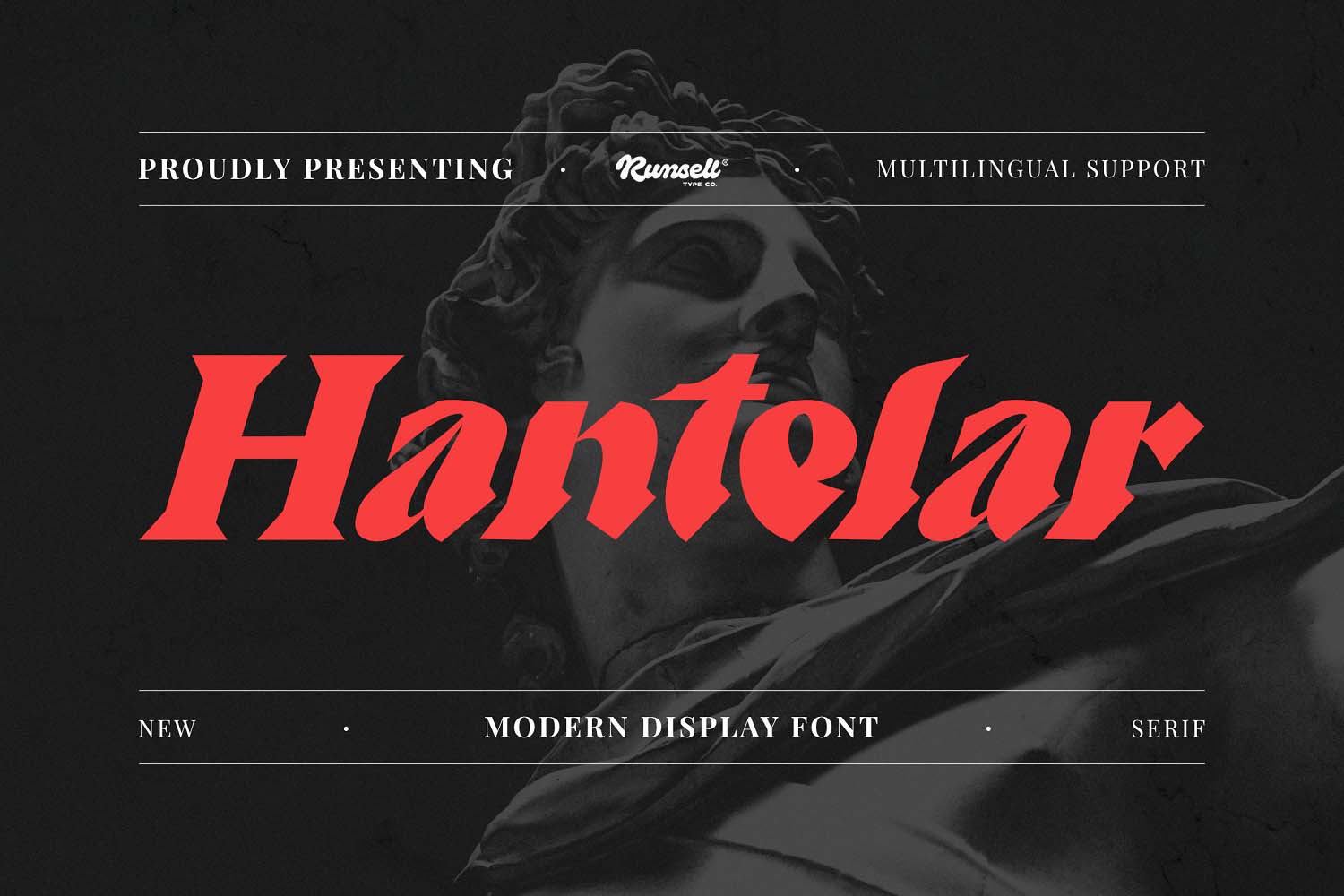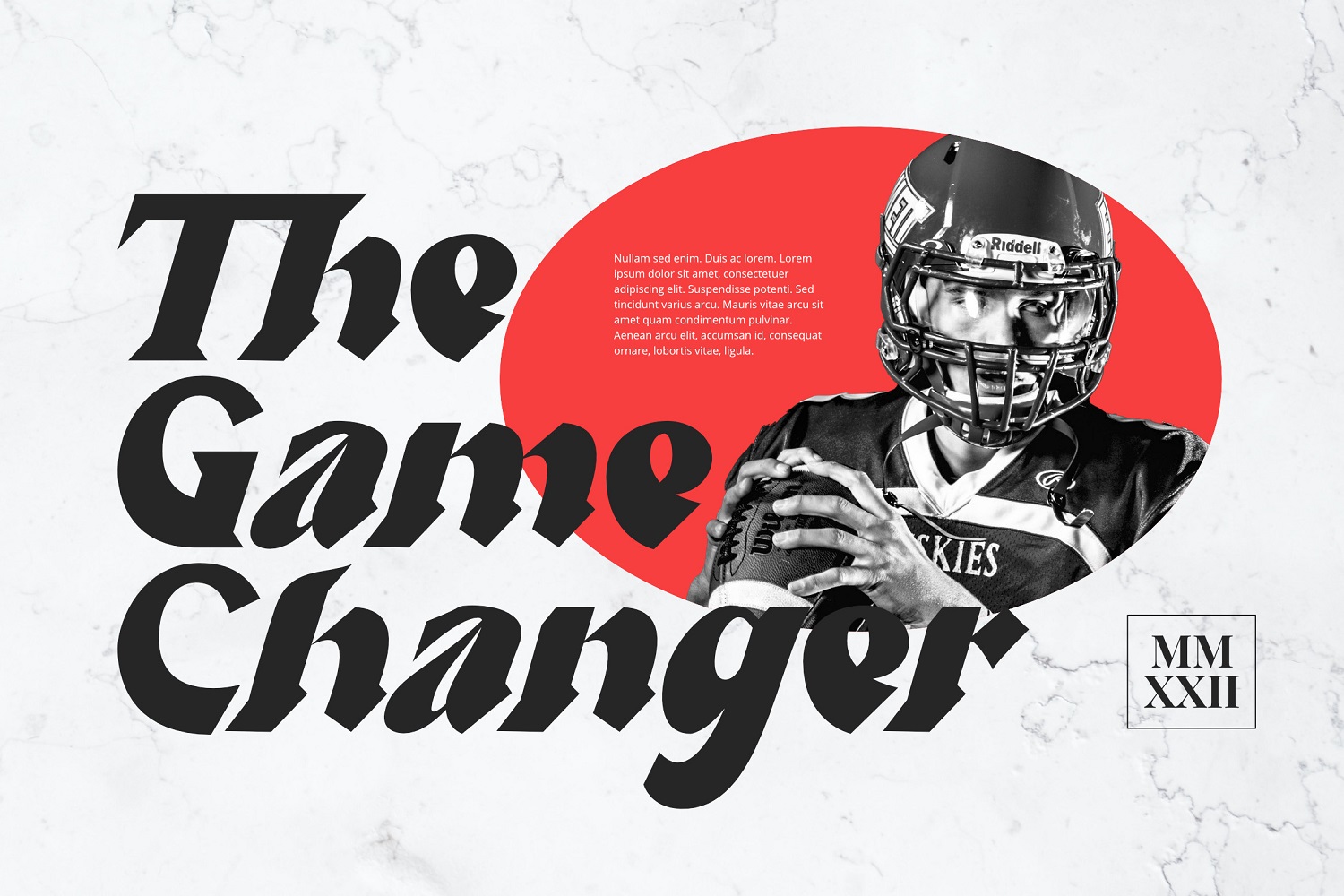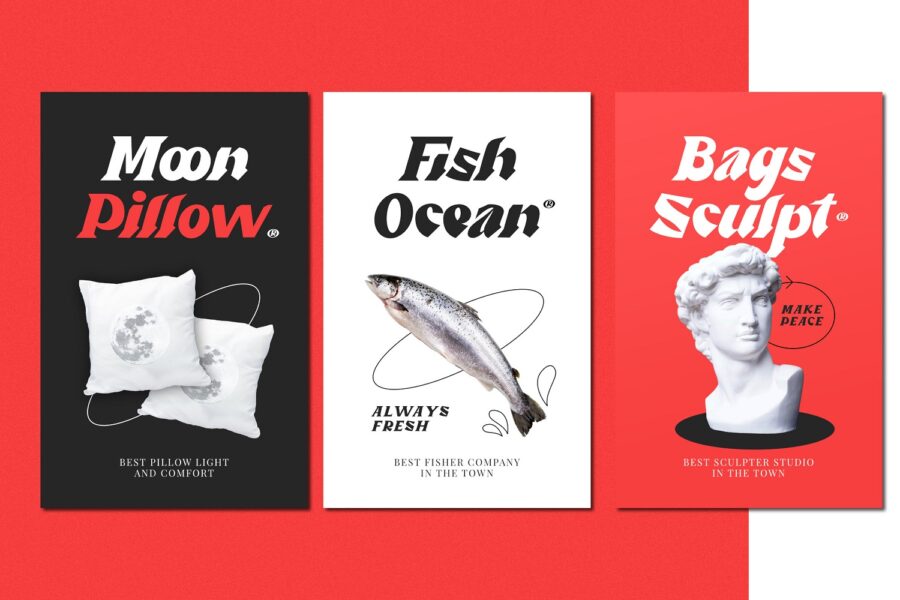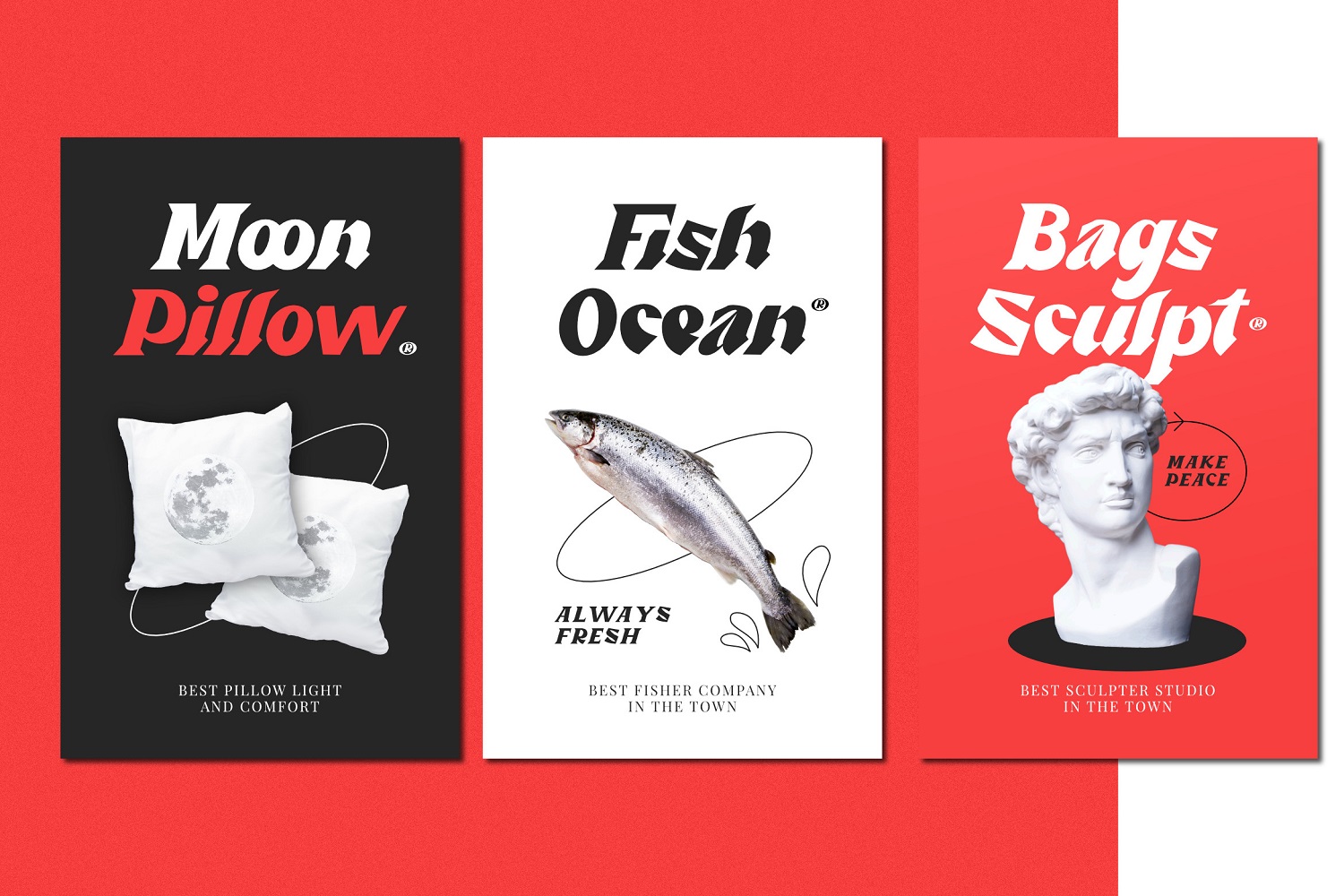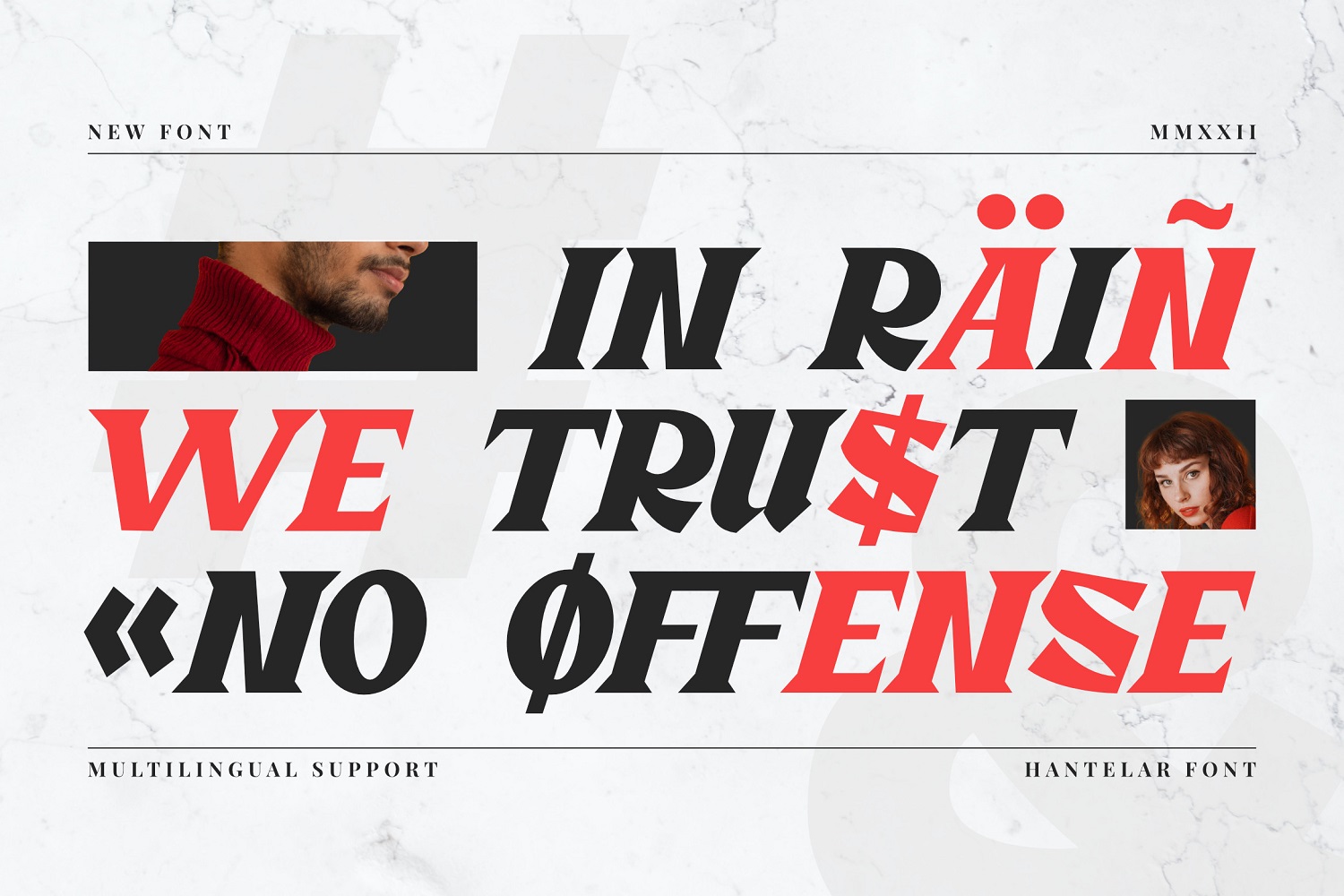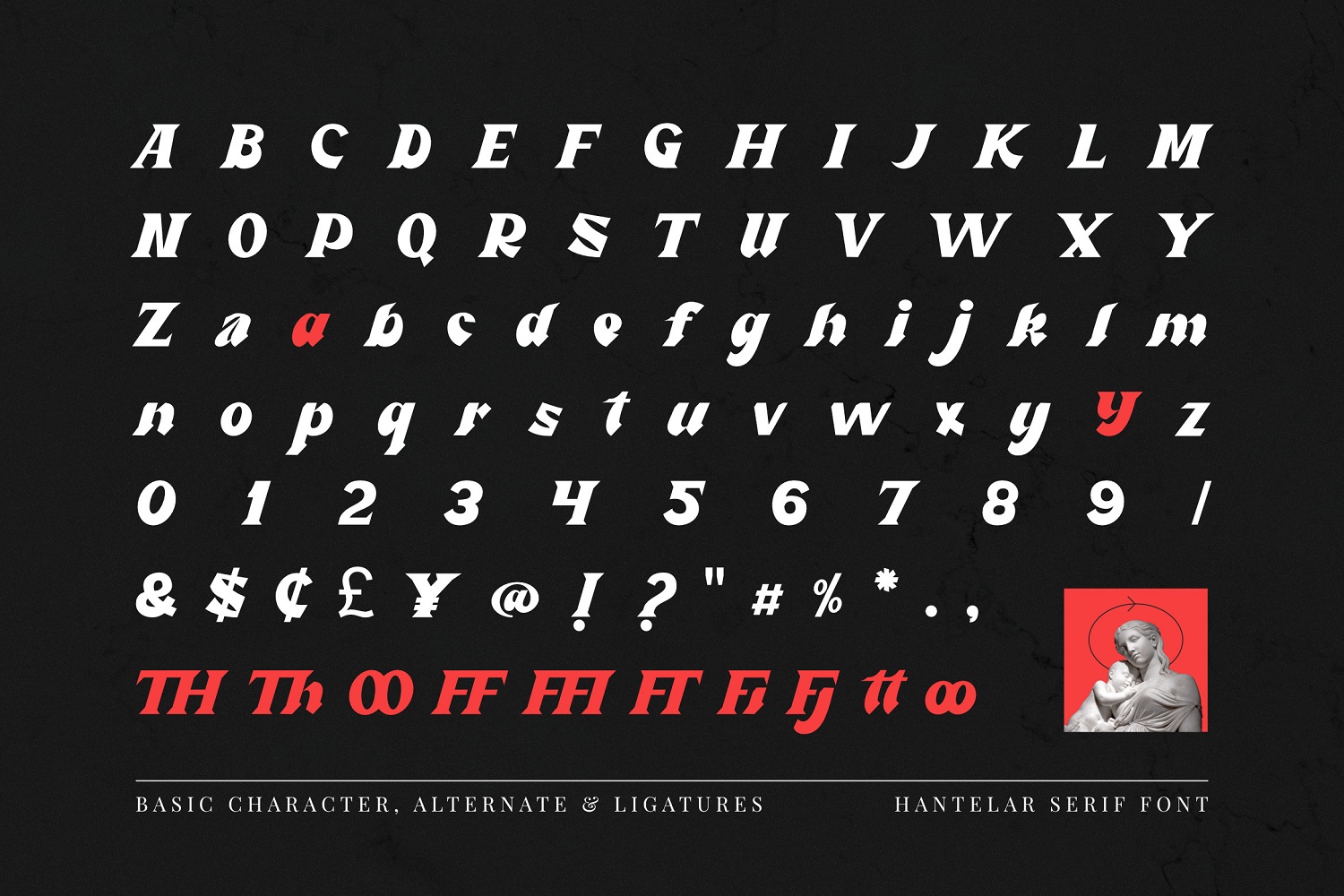
Hantelar
Hantelar is a bold and expressive modern serif display font that blends strong classical influences with a daring contemporary edge. Each character is carefully crafted with sharp angular strokes, dramatic contrast, and unique ligatures, making it perfect for branding, poster headlines, editorial layouts, or any design that needs to make a striking impact. The font’s dynamic rhythm and stylized letterforms exude confidence, power, and sophistication.
With multilingual support and a complete set of uppercase, lowercase, numerals, symbols, and alternates, Hantelar offers creative freedom for designers. Whether used in fashion campaigns, sports editorials, vintage posters, or experimental projects, Hantelar adds personality and elegance that commands attention while staying stylish and modern.